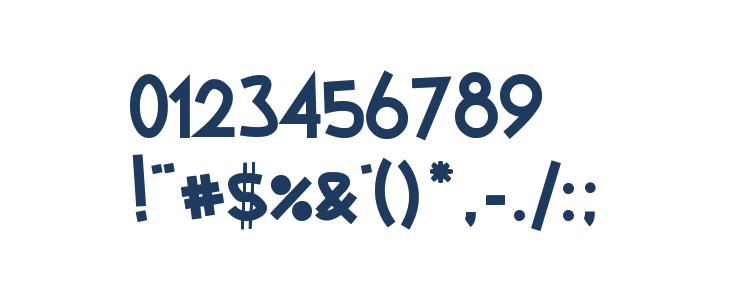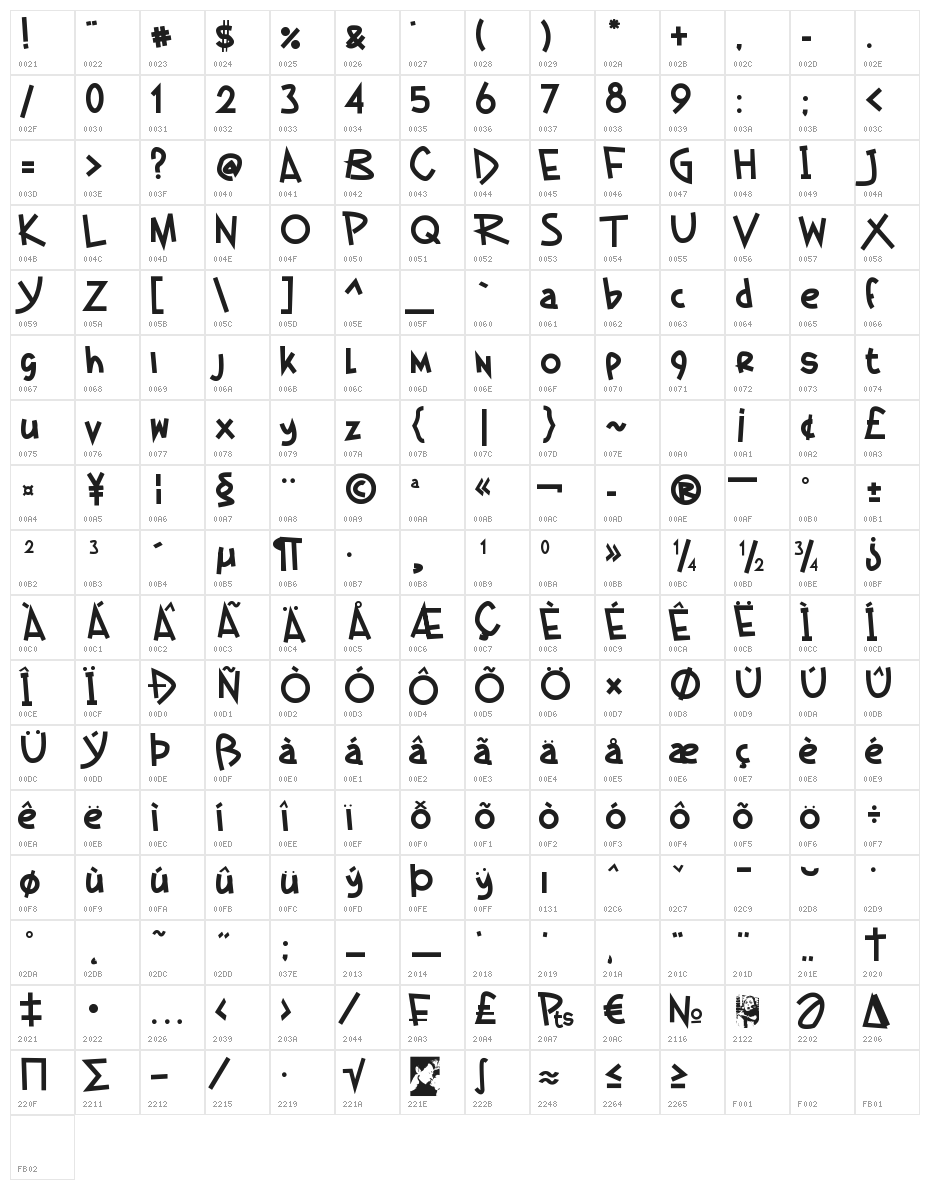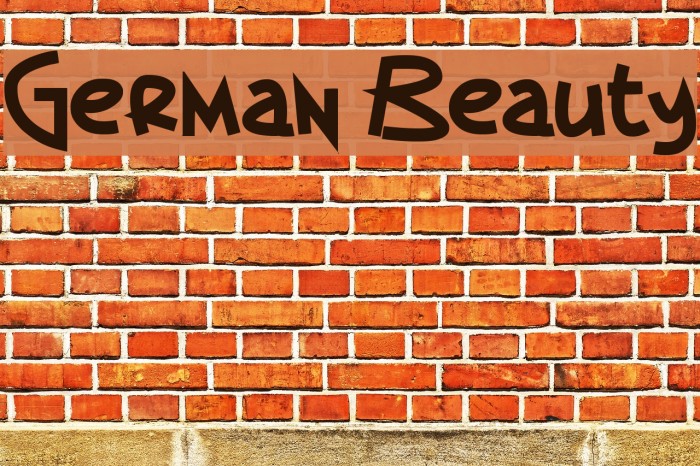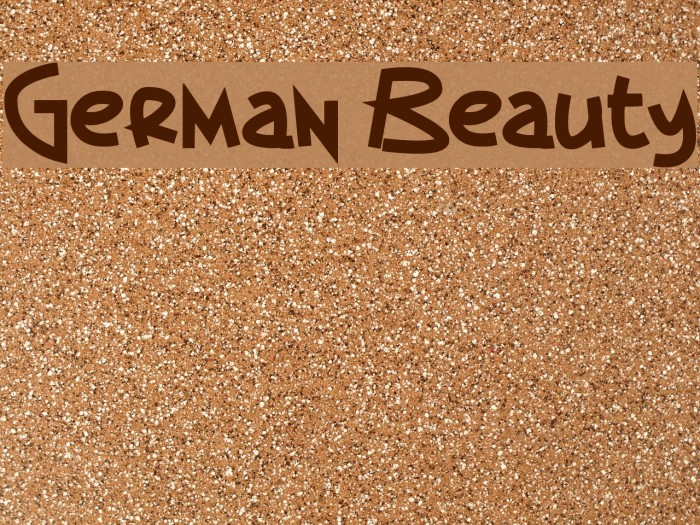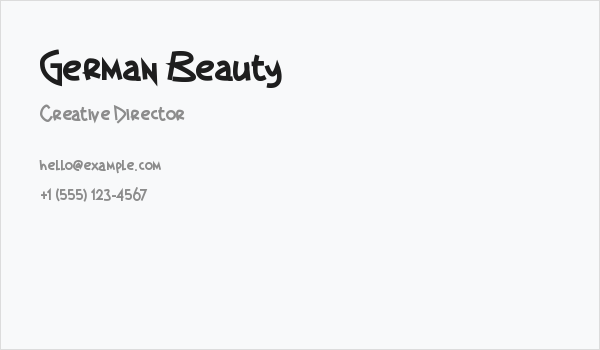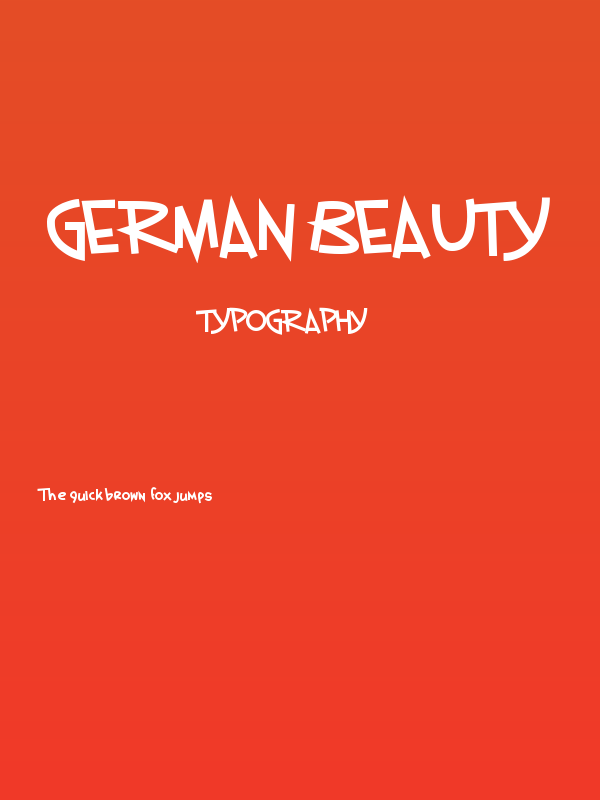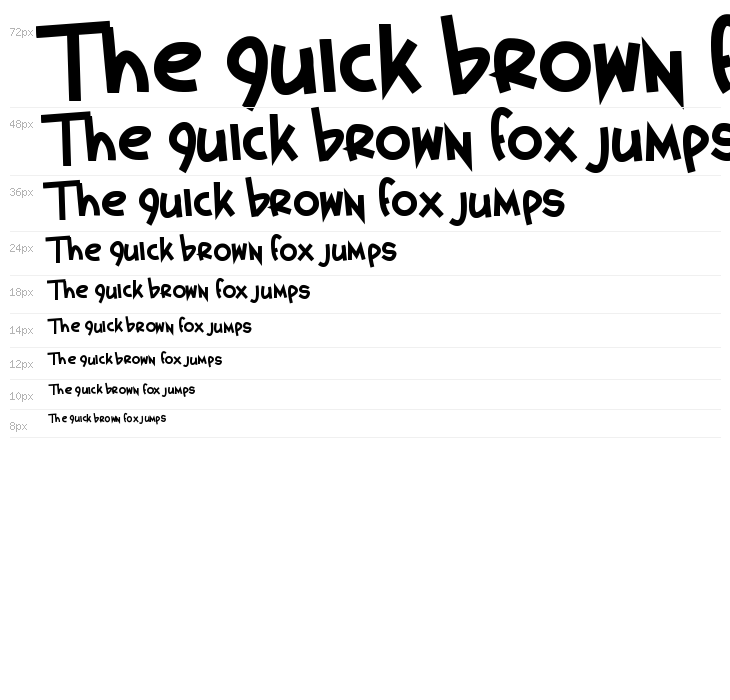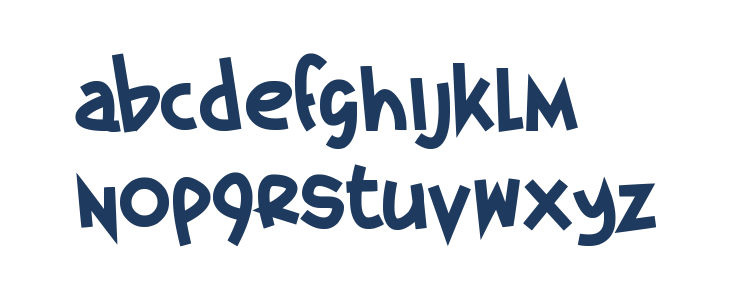
German Beauty Font
German Beauty Description
This font features a bold and playful style with a slightly irregular and hand-drawn appearance. The uppercase letters are characterized by their dynamic and angular shapes, giving them a lively and energetic feel. The lowercase letters maintain a consistent style, with rounded edges and a whimsical touch. The numerals are bold and easily readable, matching the overall playful aesthetic. Special characters are creatively designed, adding to the font's unique personality. This font is ideal for projects that require a fun and informal tone, such as children's books, posters, and creative branding.
| Overall Style | Playful, Energetic, Whimsical |
| Proposed Projects | Children's books, posters, creative branding, playful invitations. |